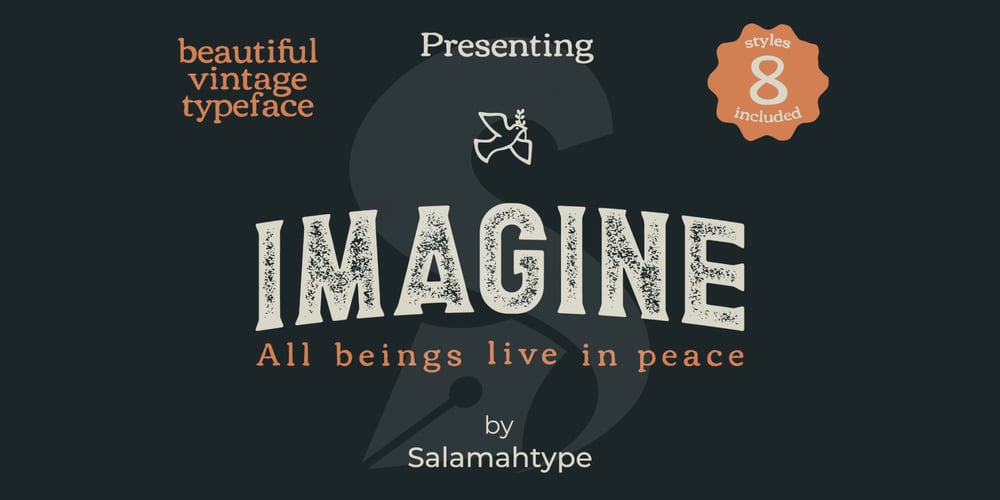
Imagine Pro Font Family was designed by Aswangga Sadike and published by Salamahtype. Imagine Pro contains 8 styles and family package options. Imagine Pro is based typeface with 4 styles included (clean, rough, stamp, rough stamp). Imagine Pro Sans and Imagine Pro Serif are perfect for branding projects, logos, labels, logotypes and more.The font Imagine Pro contains 231 glyphs.